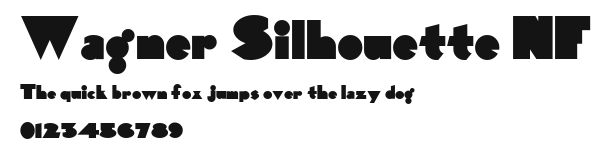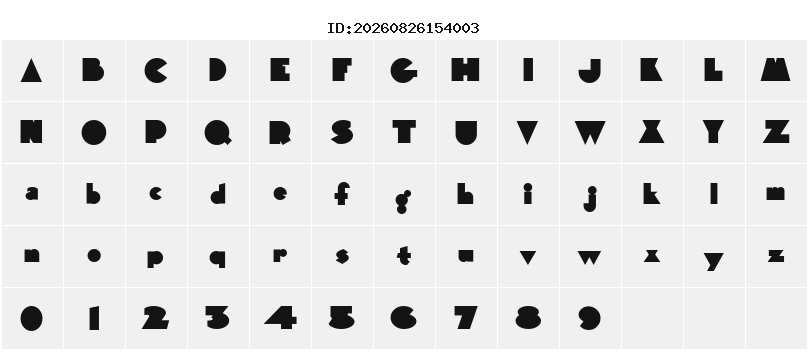
• Font Name: Wagner Silhouette NF
• Designer: Nick Curtis
About Wagner Silhouette NF.ttf
Wagner Silhouette NF.ttf is a modern, elegant sans-serif font designed for ultimate readability and visual harmony. Perfect for branding, headlines, web design, and print materials.